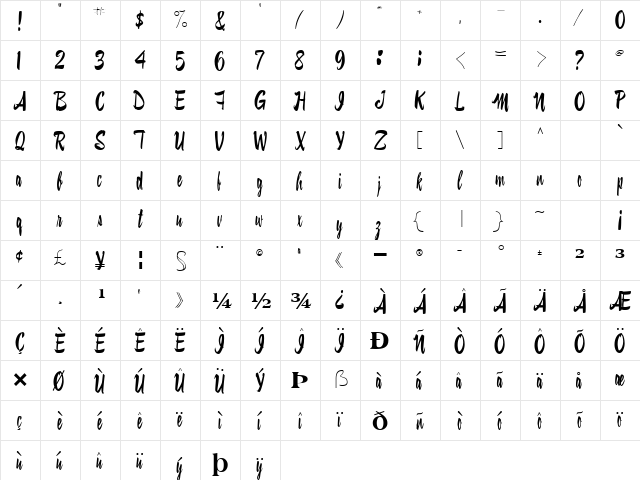
ConiScriptSSK Regular
ConiScriptSSK flows with the natural rhythm of handwritten lettering, making it ideal for designs that call for warmth and personal expression.
Font Pairing: Combine ConiScriptSSK with a simple geometric sans for maximum contrast — the tension between flowing curves and clean structure is a classic typographic pairing.
Pro Tip: Use ConiScriptSSK for short runs of text — names, titles, or taglines. Extended body copy in script faces tires the eye quickly.